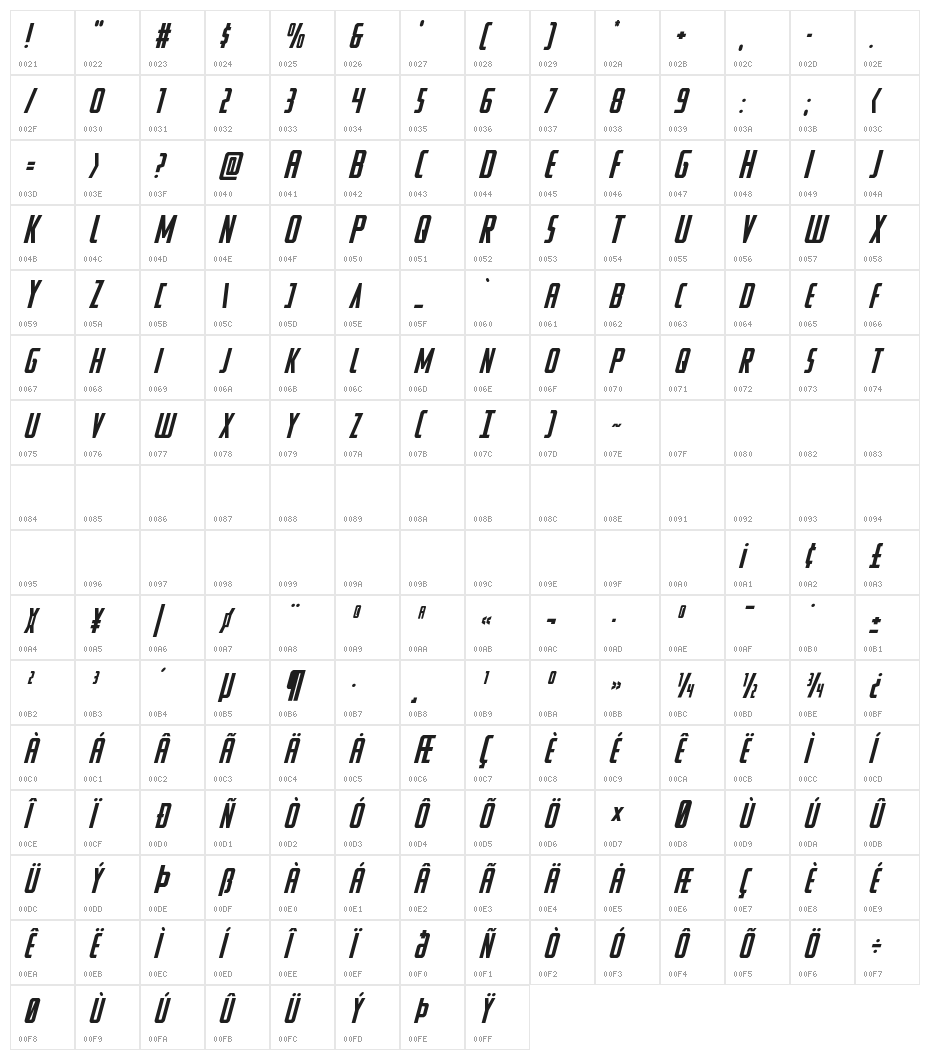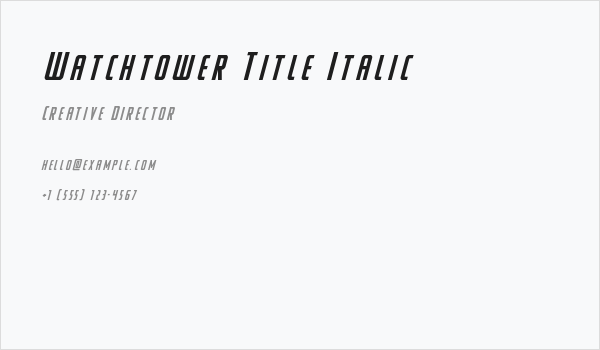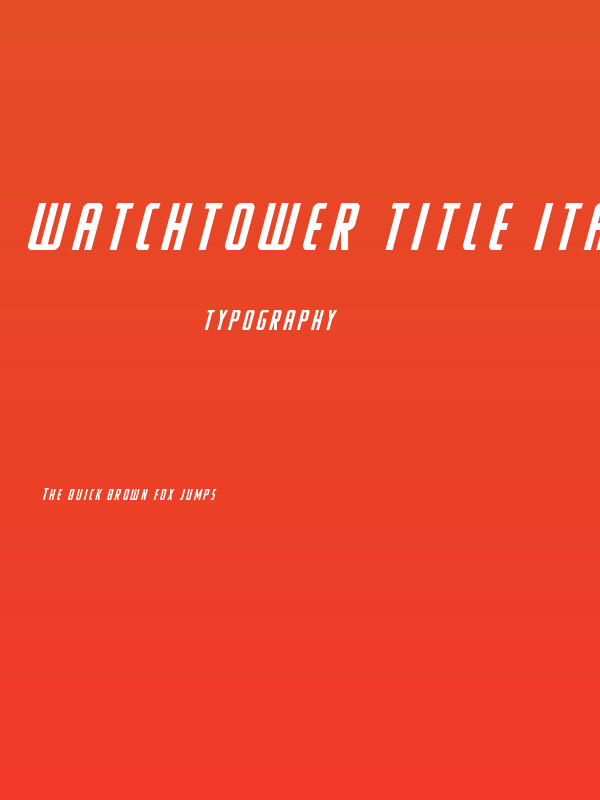
Watchtower Title Italic Font
Watchtower Title Italic Description
This font features a bold, italicized style with a modern and sleek appearance. The characters are slightly condensed, giving it a compact look while maintaining readability. The strokes are consistent in thickness, providing a medium contrast that enhances its dynamic and energetic feel. The slanted design adds a sense of motion and urgency, making it suitable for attention-grabbing headlines or titles. The uppercase and lowercase letters are well-proportioned, and the numerals are clear and distinct. Special characters are included, maintaining the font's cohesive style.
| Proposed Projects | Ideal for use in headlines, posters, branding, and advertising where a strong, modern impact is desired. |